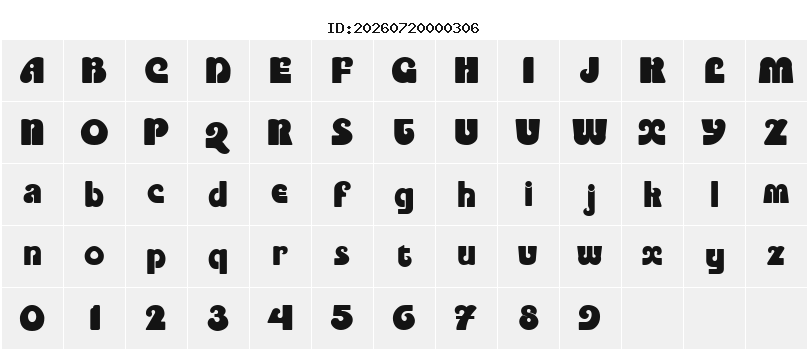
Enliven Preview
• Font Name: Enliven
• Full Font Name: Enliven Regular
About Enliven.ttf
Enliven.ttf is a modern, elegant sans-serif font designed for ultimate readability and visual harmony. Perfect for branding, headlines, web design, and print materials.